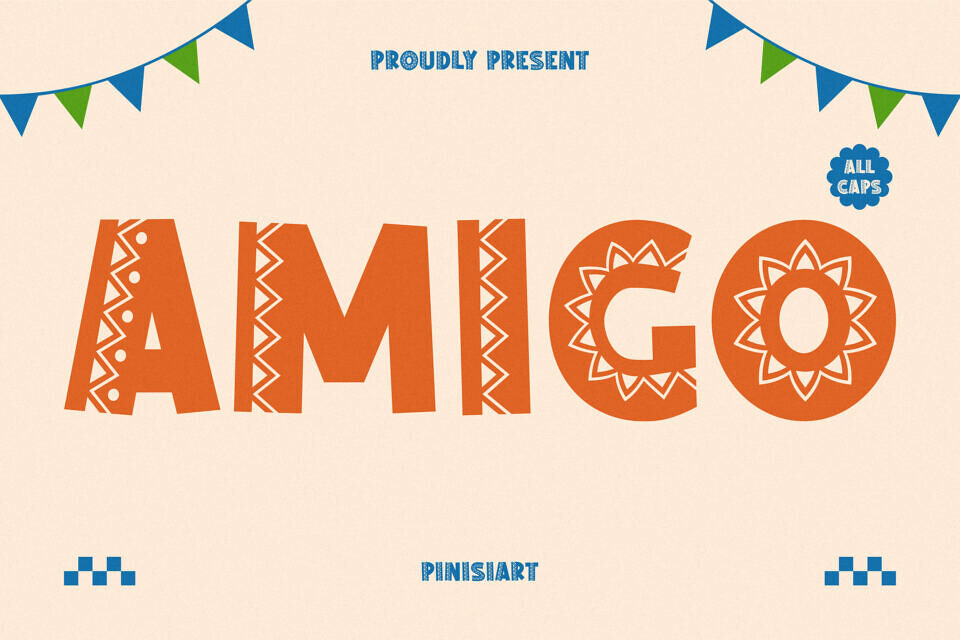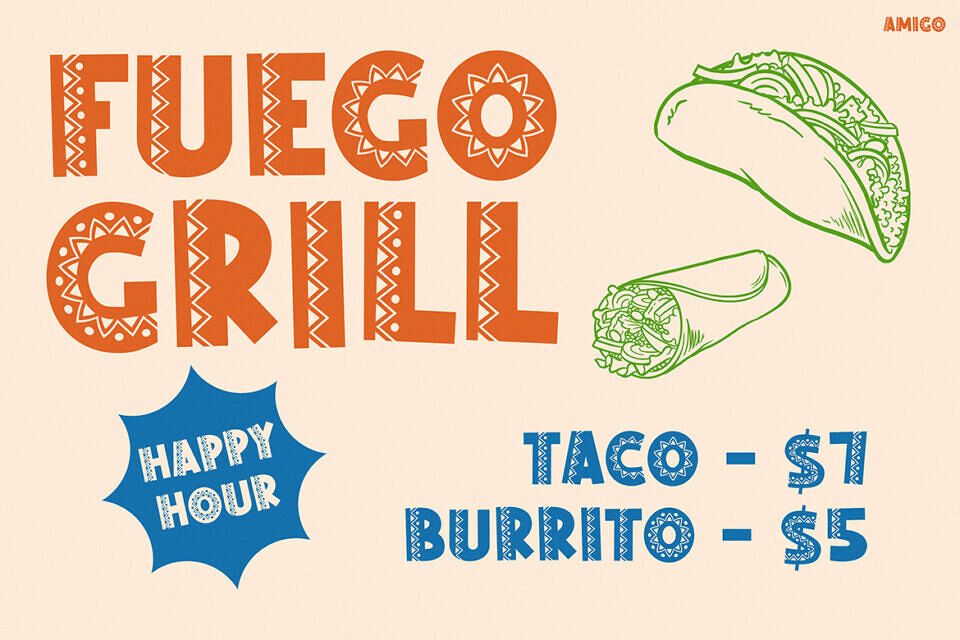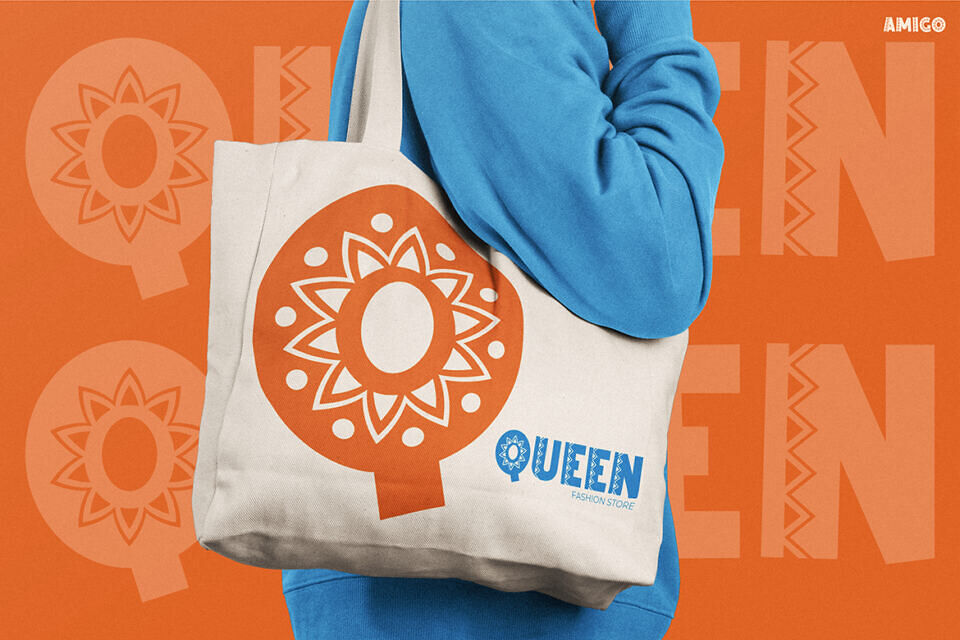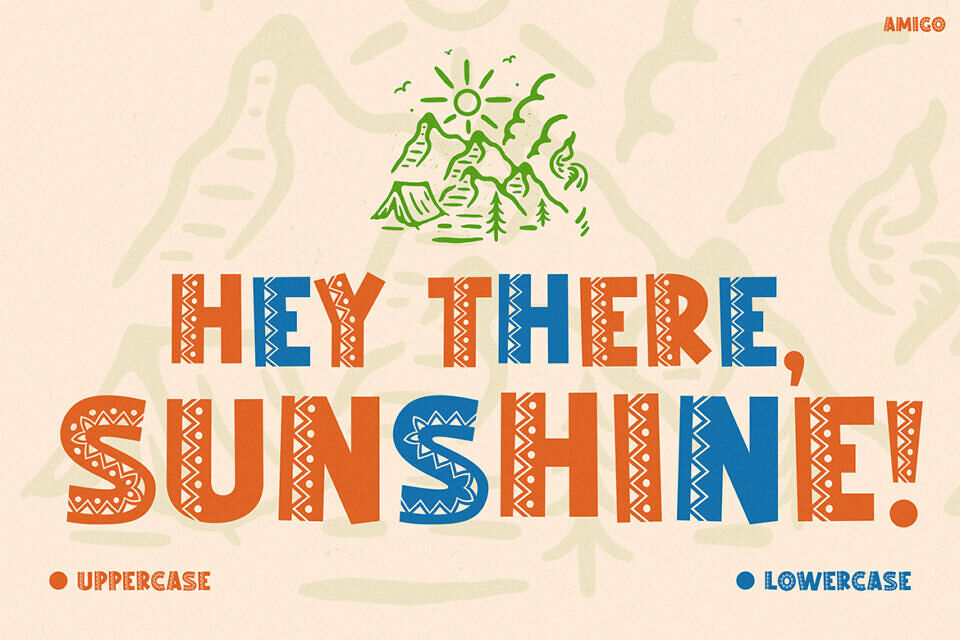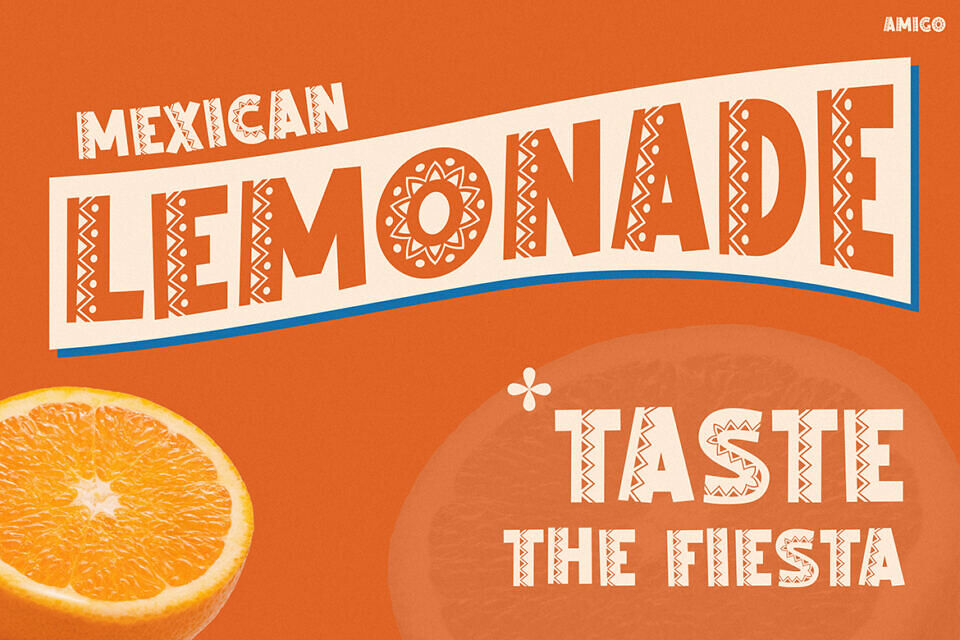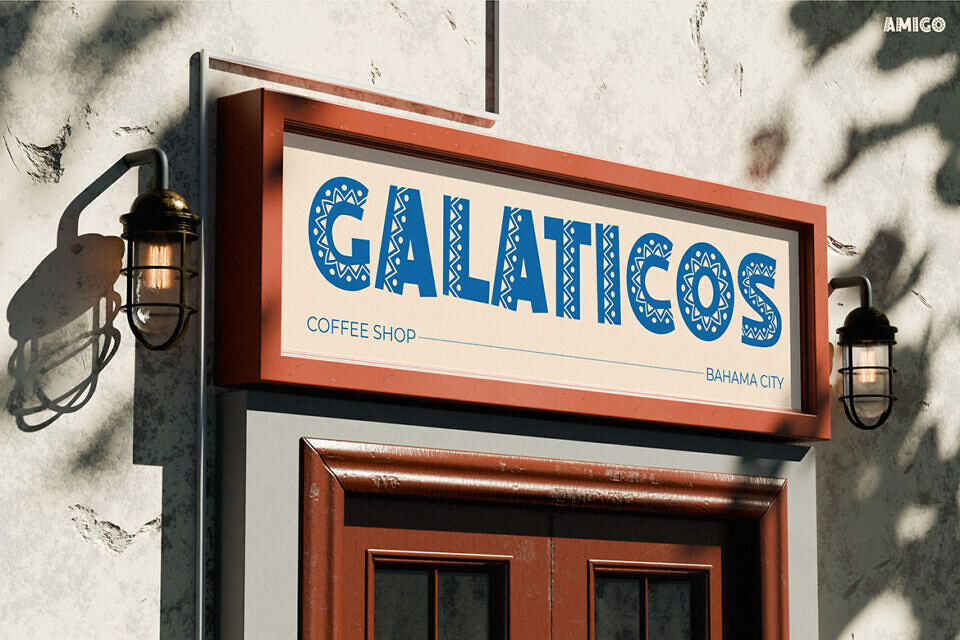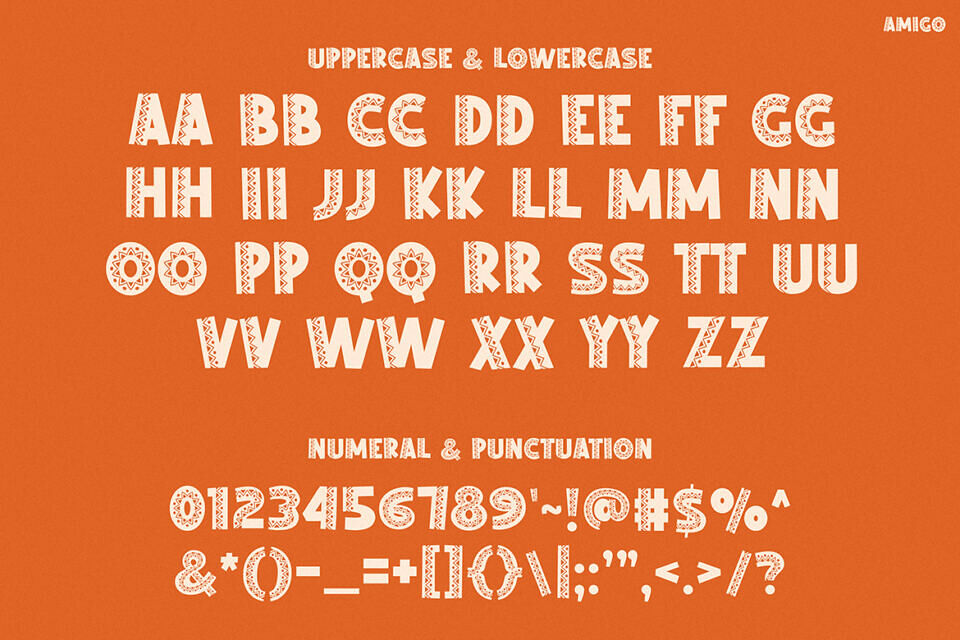
Amigo Font
Kids Font Amigo is a bold and cheerful display typeface that spreads instant happiness. Inspired by Latin fiesta vibes and festive shapes, it’s designed to fill your projects with color, energy, and joy. Moreover, every letter feels handcrafted, giving your text a warm and friendly personality. With its playful cuts and decorative edges, this font makes every word feel alive and exciting.
This typeface stands out with its strong geometric style, chunky form, and handmade texture that combine to create a unique visual rhythm. Therefore, it’s perfect for designs that want to grab attention and share positive energy. Whether you’re crafting a children’s book cover, a food poster, or a fun social media design, Amigo instantly adds personality.